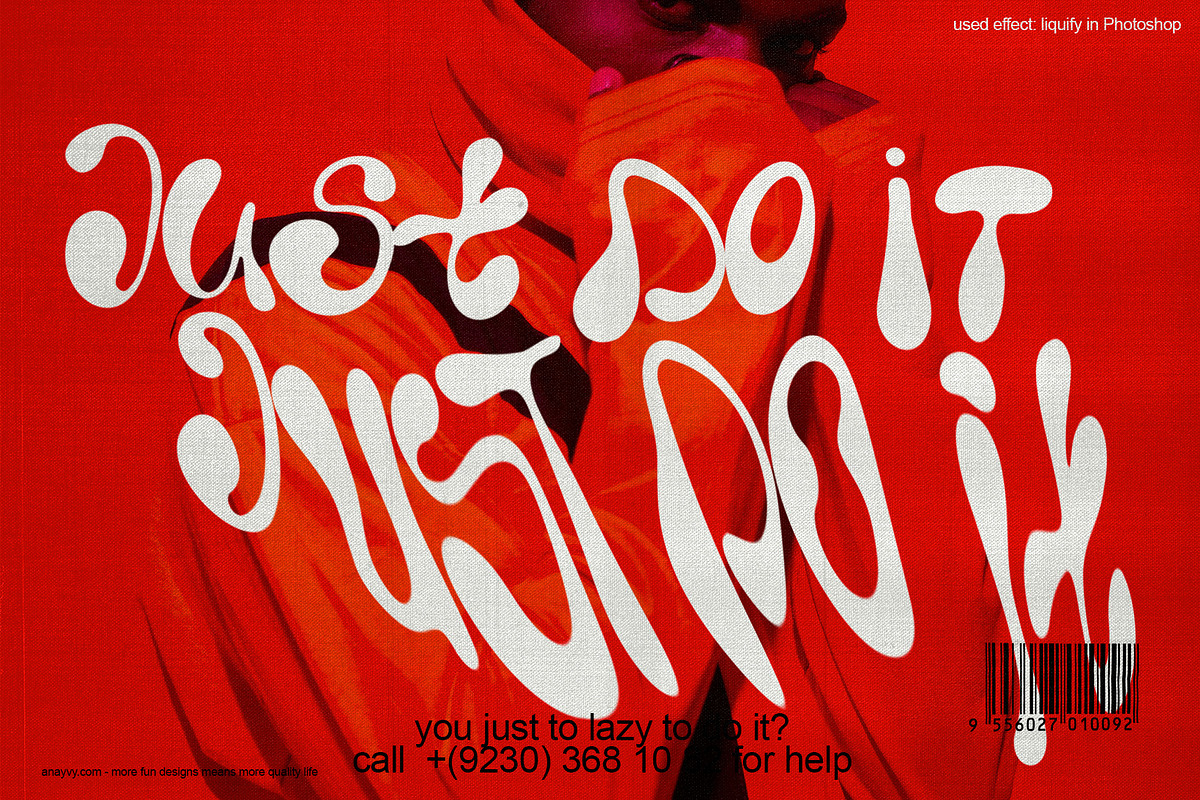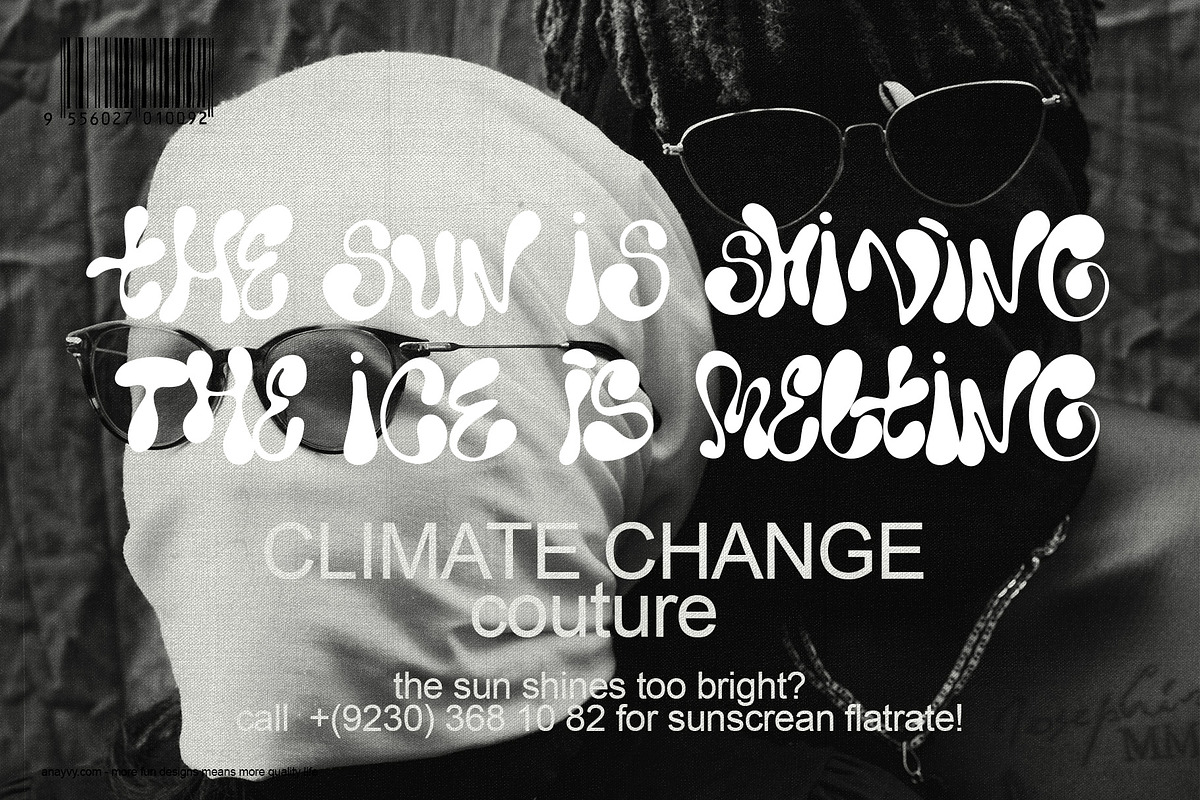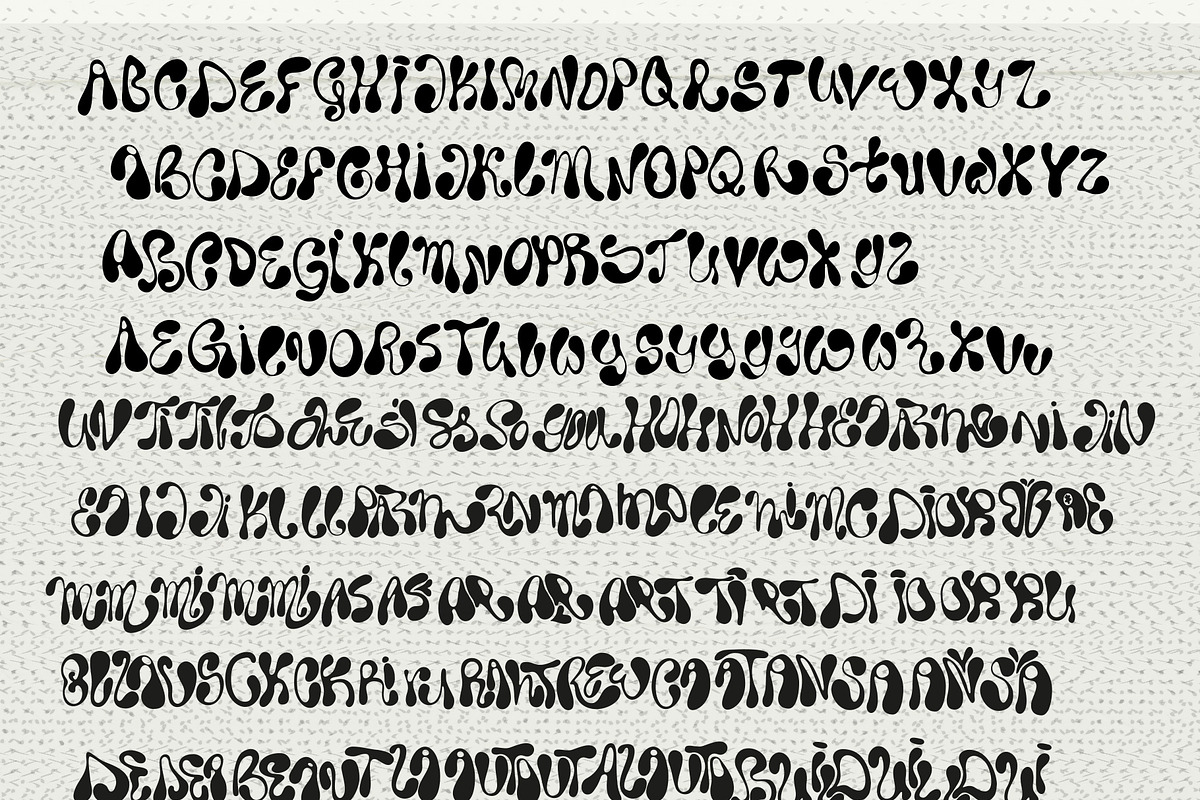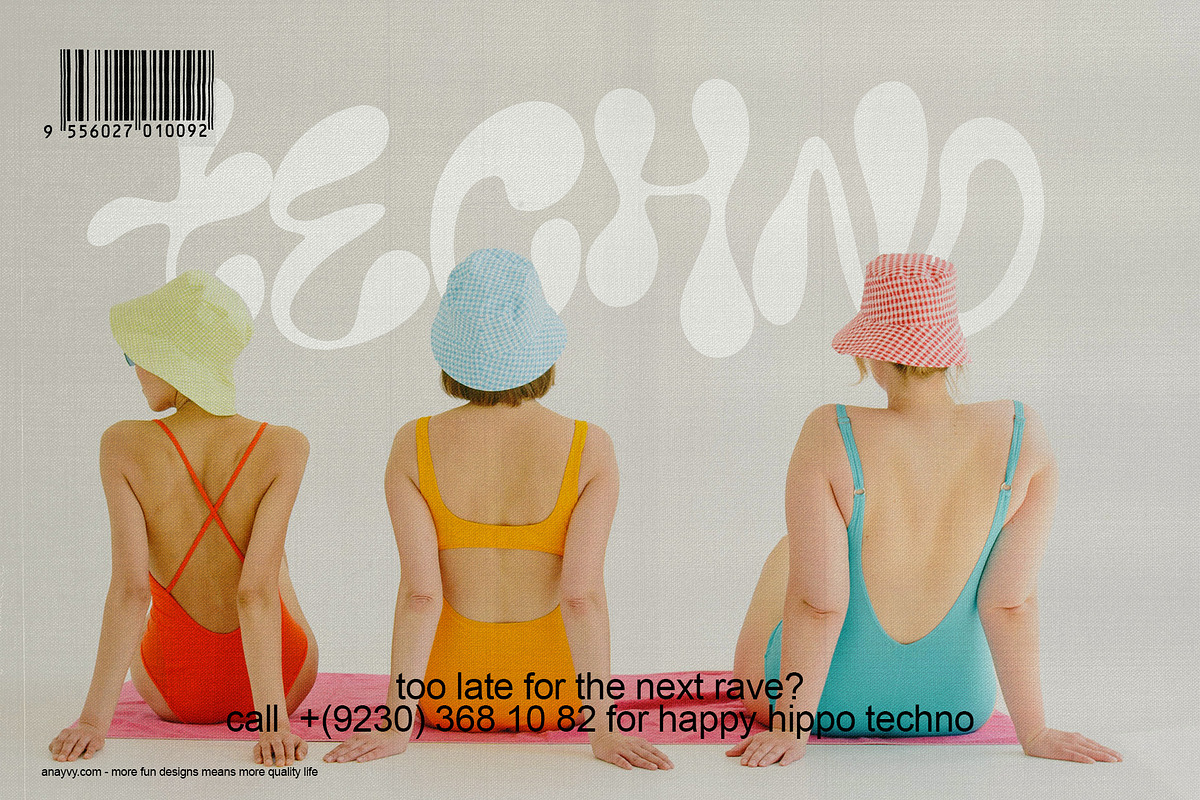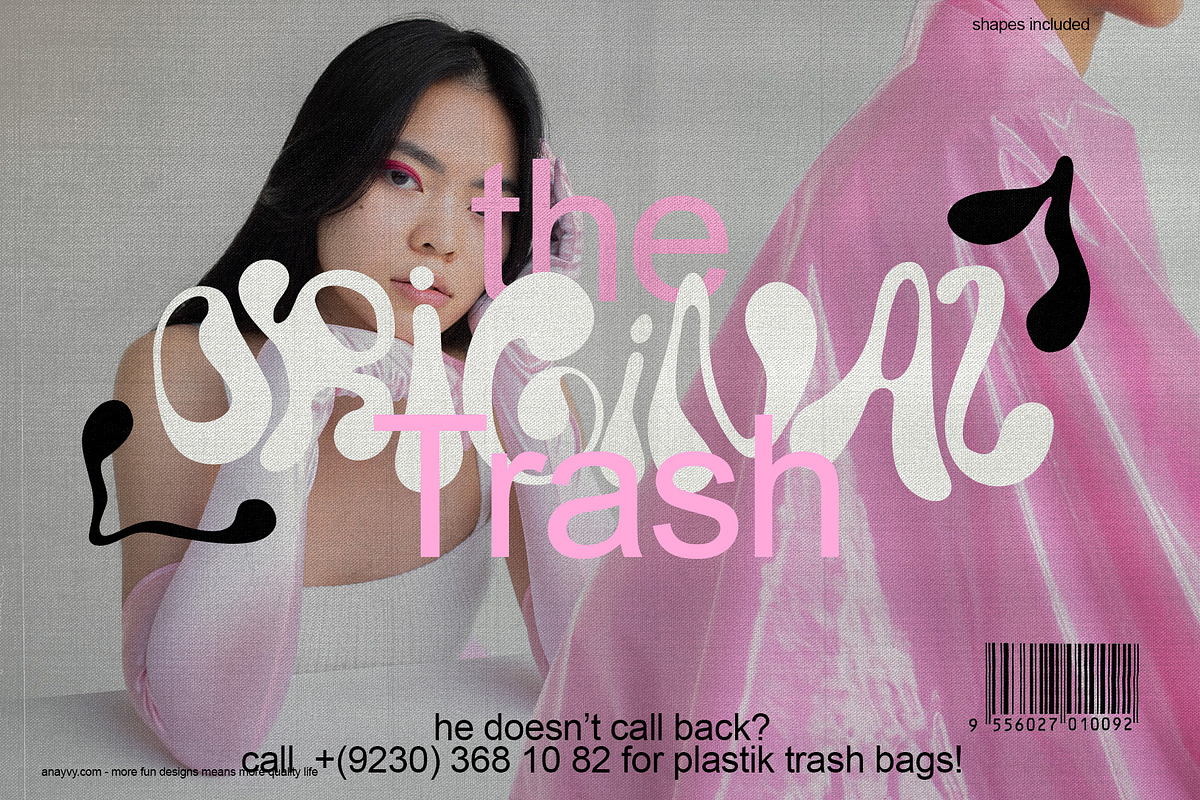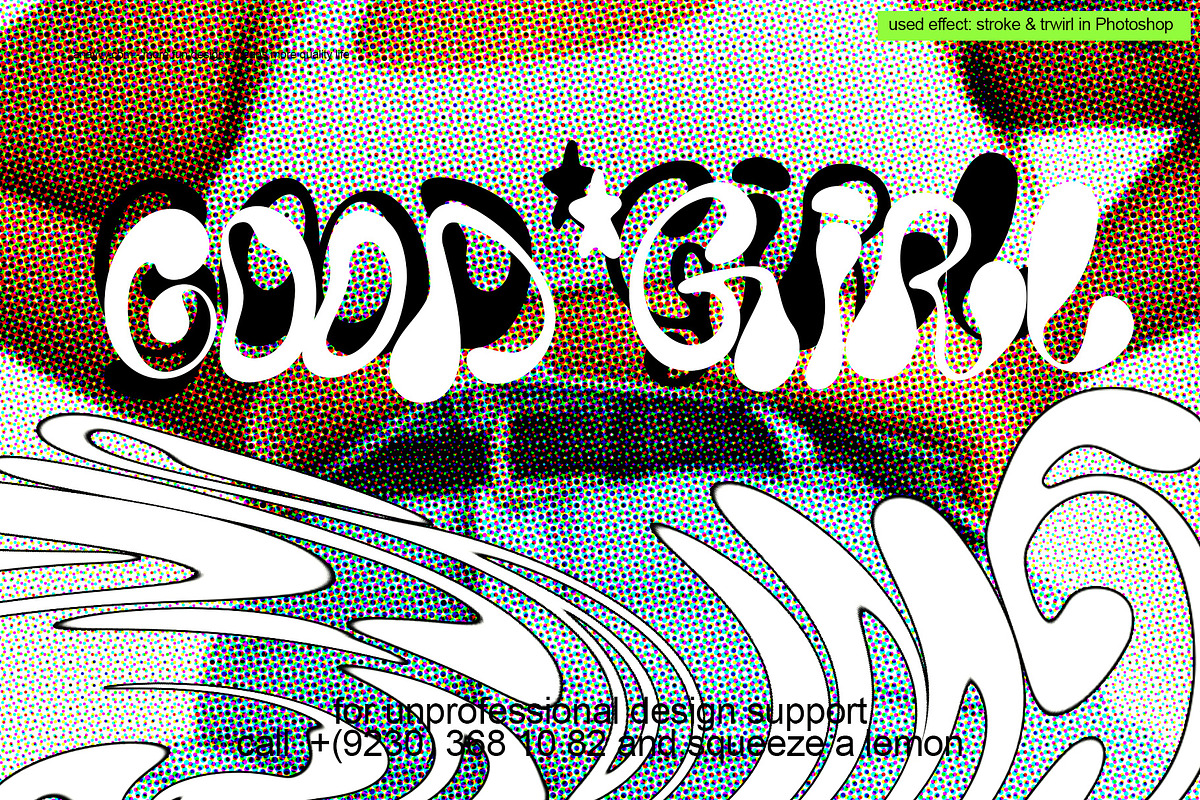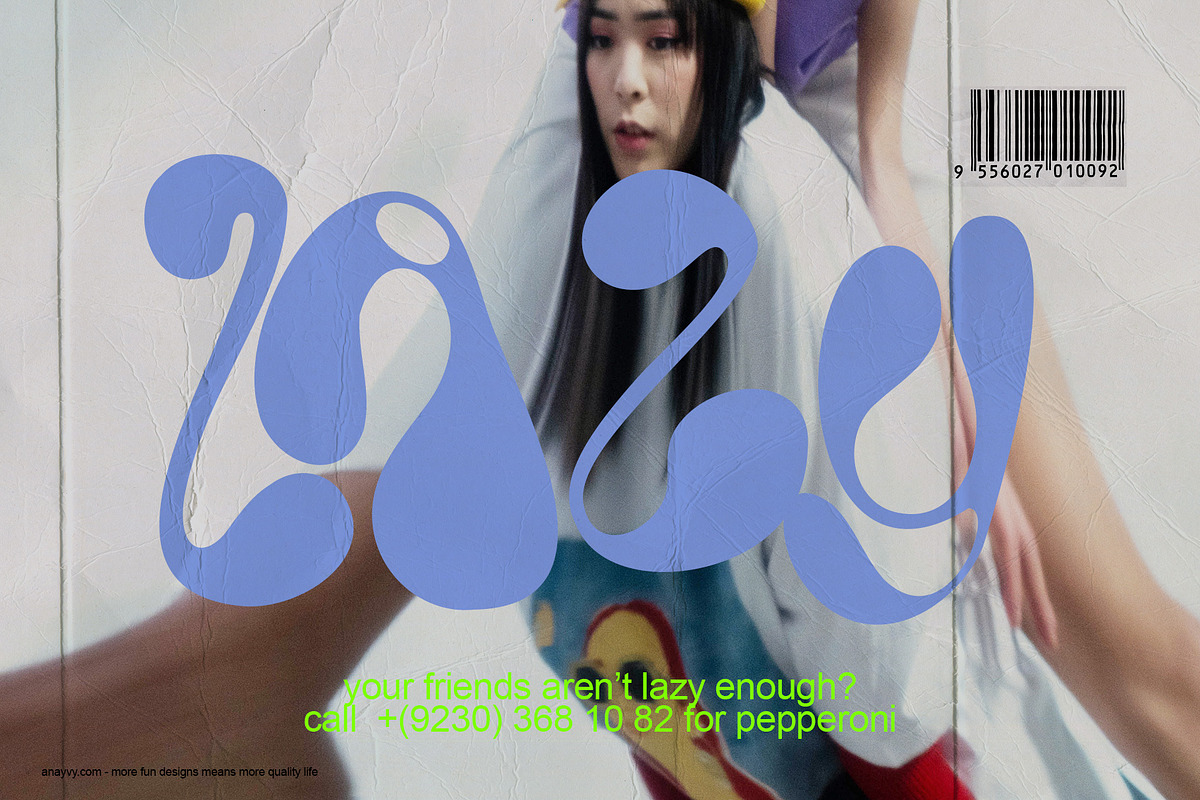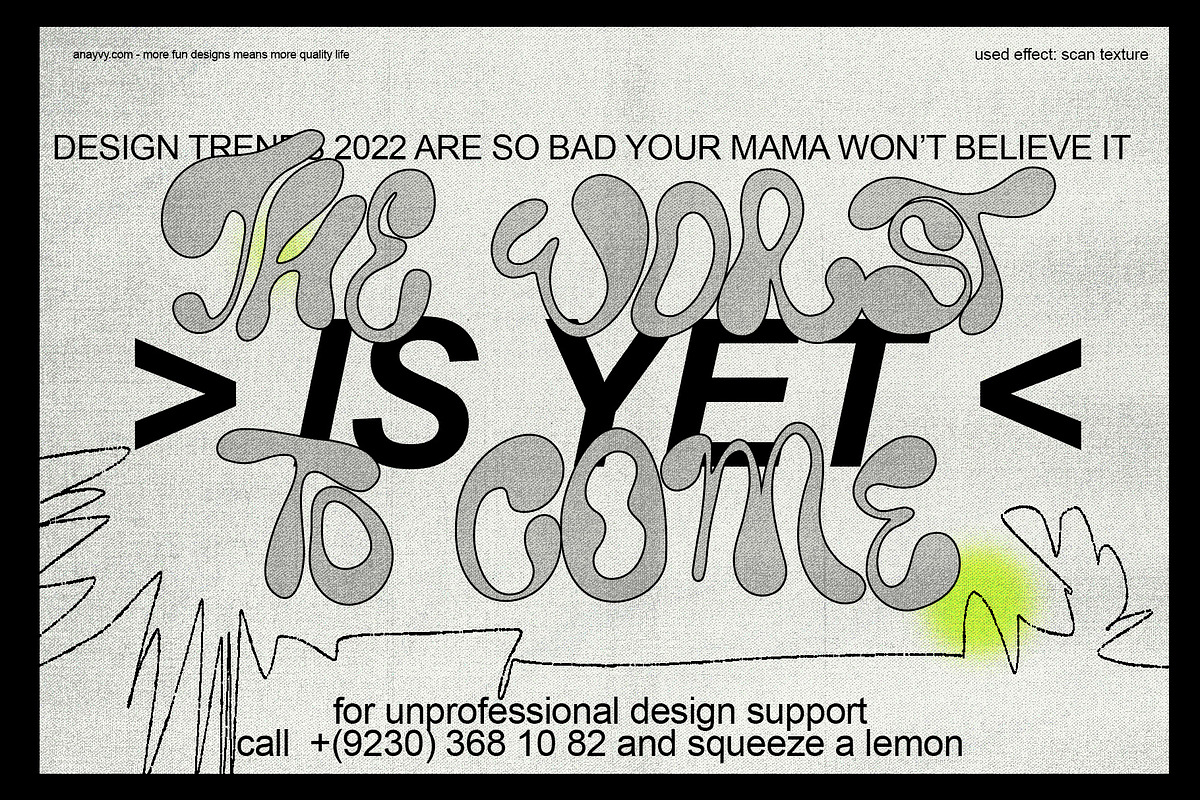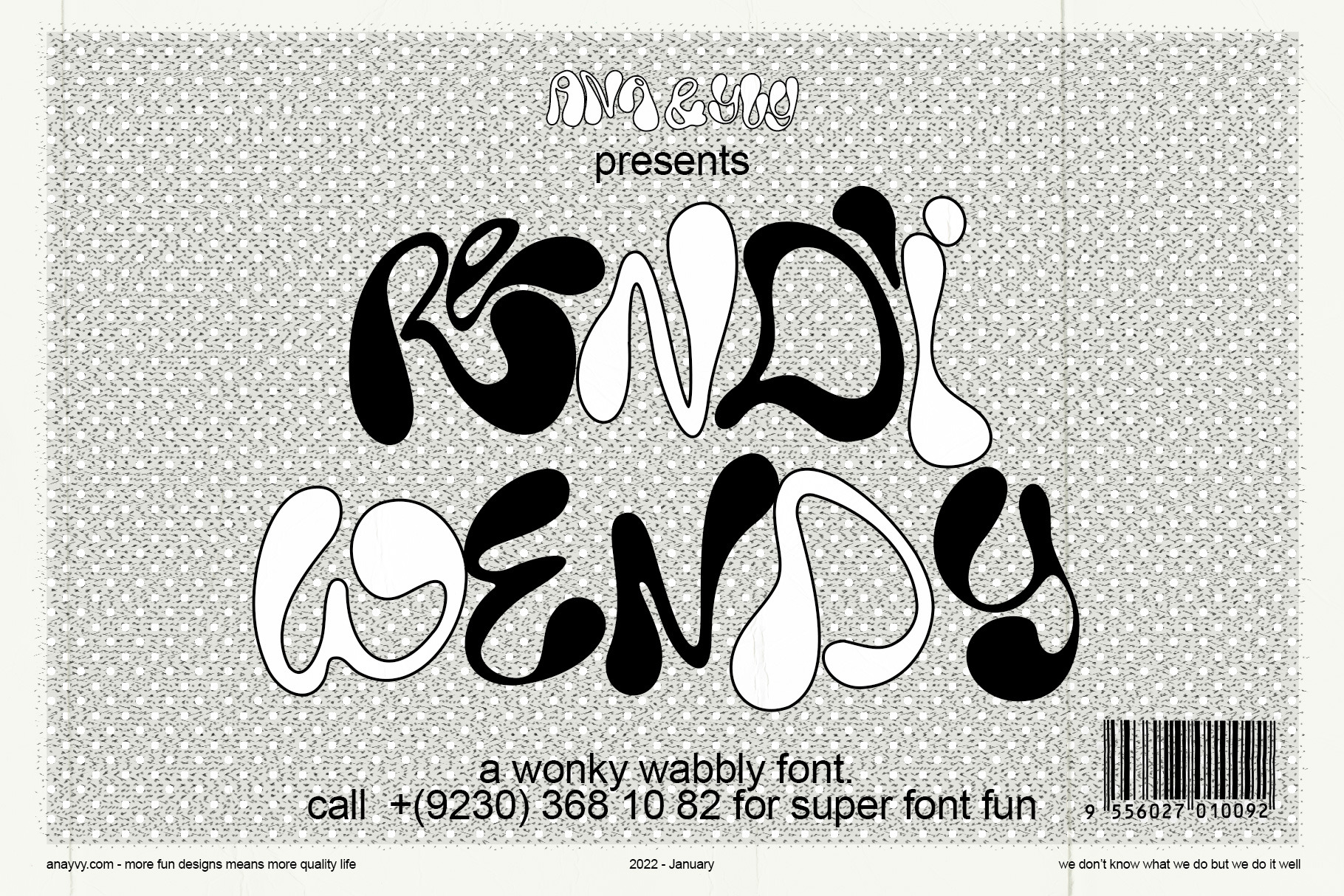
Rendi Wendy a chunky trippy font
Say hello Rendi Wendy - Hello RENDI WENDY.
Why makes weird and ugly fonts? ana & yvy! But we still love them :D Rendi Wendy is a fun, chunky, wobbly and trippy font with a lot of alternates and ligatures. It might seem sometimes the font doesn't work out but you will always find a cool alternate that matches the gap. Keep in mind this is not a fancy Nancy serif font for wedding invitations! It has to look weird. if you have some parts you don't like you can use the liquify tool to adjust it. It's a lot of fun!
- font comes WITHOUT the outline effect. This effect is easily made inside Photoshop
- on some preview images the font has a liquify filter on top, this is made in Photoshop